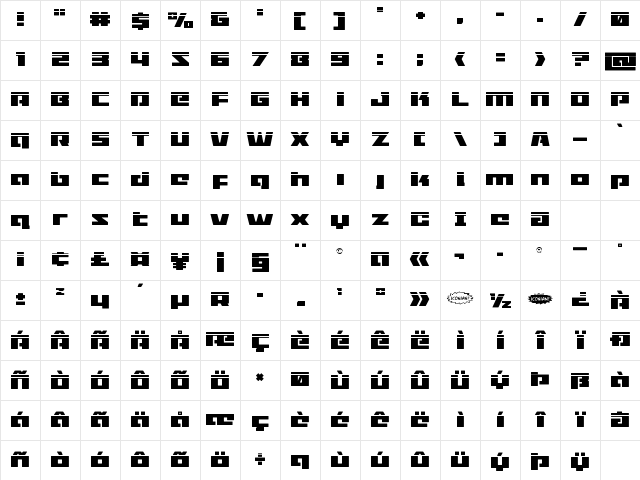
Turbo Charge Laser Regular
Design Context for Turbo Charge Laser
Turbo Charge Laser is a composed and adaptable typeface that performs quietly and consistently across a wide range of design contexts.
Pro Tip: Use Turbo Charge Laser in both headline and body roles to test its range before committing to a single application.